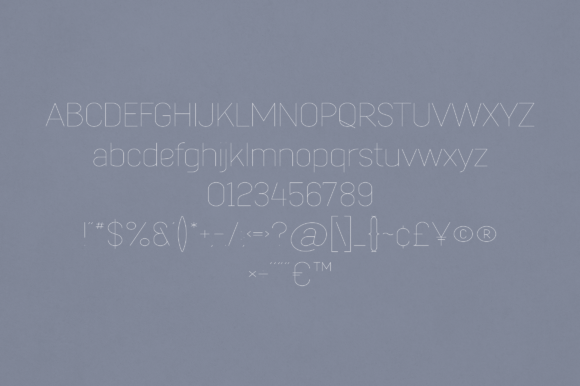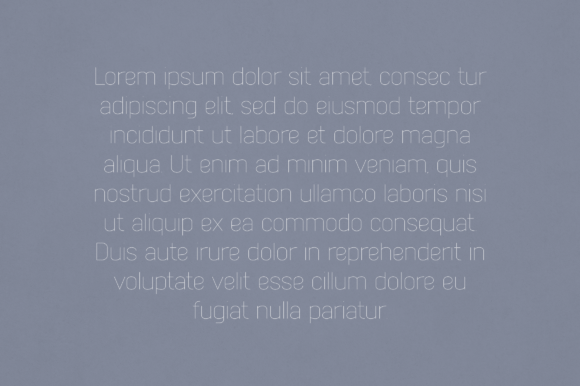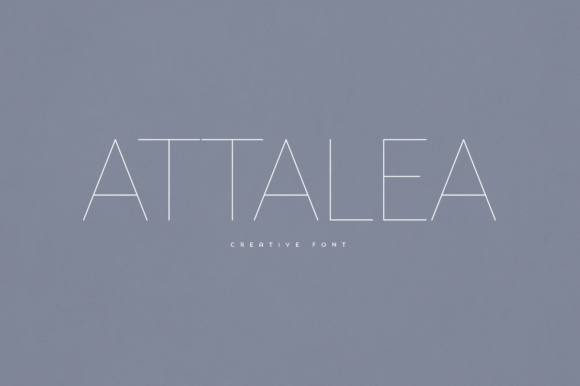
Introducing Attalea Font: Elevate Your Design with Elegance and Versatility
In the world of typography, a font can make or break a design. It’s the foundation upon which your creative vision is built, and when chosen wisely, it can elevate your project to new heights. If you’re on the hunt for a typeface that exudes elegance, versatility, and a touch of uniqueness, look no further than the Attalea Font. This stunning font is designed to transform your typography into something truly special, making it perfect for a wide range of applications, from logos and branding to headlines, packaging, and more.
The Essence of Attalea Font
Attalea is more than just a font; it’s an experience. Its elegant design ensures that it stands out in any context, adding a layer of sophistication and refinement to your designs. Whether you’re working on a logo, a branding project, a magazine header, or simply looking for a stylish text overlay for a background image, Attalea is the perfect choice. Its versatility means it can adapt to any style or theme, ensuring that your design remains cohesive and visually appealing.
For designers and crafters, finding the right font can often be a daunting task. You need something that not only looks great but also complements your design and communicates your message effectively. Attalea Font ticks all these boxes and more. Its unique yet elegant design ensures that your work stands out, giving you a competitive edge in a crowded marketplace. Whether you’re creating branding materials, product packaging, or home-ware designs, Attalea can help you achieve that wow factor.
Applications of Attalea Font
The possibilities with Attalea Font are endless. Here are some of the key areas where it truly shines:
- Branding Projects: Create a lasting impression with a unique and elegant typeface that reflects your brand’s personality.
- Home-Ware Designs: Add a touch of sophistication to your home-ware designs, making them stand out in a competitive market.
- Product Packaging: Elevate your product packaging with a stylish and versatile font that captures the essence of your product.
- Magazine Headers: Create eye-catching headers that draw readers in and set the tone for your content.
- Text Overlays: Use Attalea as a stylish text overlay on any background image, adding depth and elegance to your visuals.
Why Choose Attalea Font?
With so many fonts available, why choose Attalea? The answer lies in its unique combination of elegance, versatility, and charm. Here are a few reasons why Attalea stands out:
- Unique Design: Attalea boasts a unique design that will set your typography apart from the rest.
- Versatility: Its versatile nature means it can be used across a wide range of projects and applications.
- Elegance: Add a touch of elegance to your designs, making them more sophisticated and refined.
- User-Friendly: Easy to use and integrate into your projects, ensuring a smooth design process.
In conclusion, the Attalea Font is a game-changer for designers and crafters looking to elevate their typography. Its elegant and versatile design makes it perfect for a wide range of applications, from branding and packaging to magazine headers and text overlays. With Attalea, you can transform your designs, making them more unique, sophisticated, and visually appealing. So why wait? Discover the power of Attalea Font today and take your designs to new heights.
Attalea Font: “Attalea is an elegant and versatile font that will make your typography truly unique! It will enchant every logo, branding, headline, or plain text! This font is perfect for branding projects, home-ware designs, product packaging, magazine headers – or simply as a stylish text overlay to any background image.”